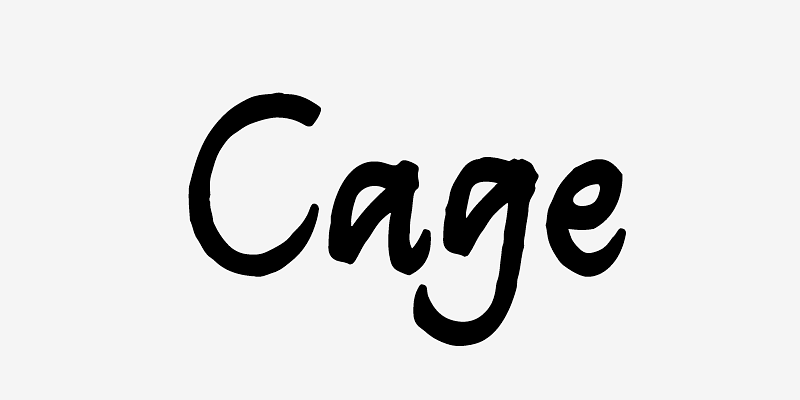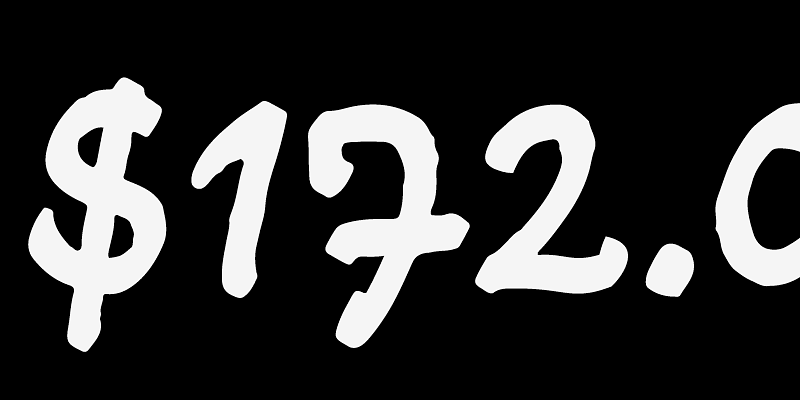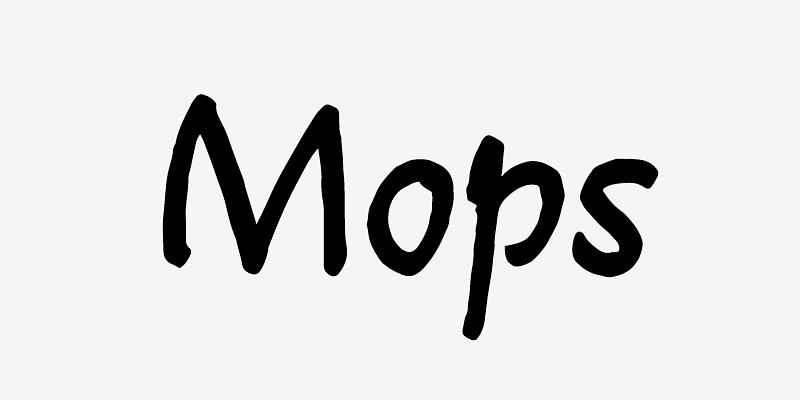
Begaz is a casual, versatile script based directly on my own handwriting. Slightly chunky and mostly non-connected, it mimics the look of a marker pen with a relaxed, handwritten feel. Packed with alternates and ligatures for smooth, natural flow. Great for anything that calls for an informal, personal touch. Supports Extended Latin.